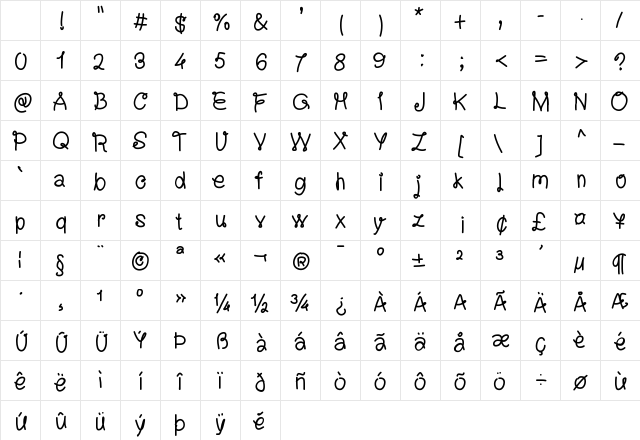
Complete XperiencePasta Medium glyph index. Displaying only characters natively supported by XperiencePasta Medium font.
XperiencePasta is a composed and adaptable typeface that performs quietly and consistently across a wide range of design contexts.